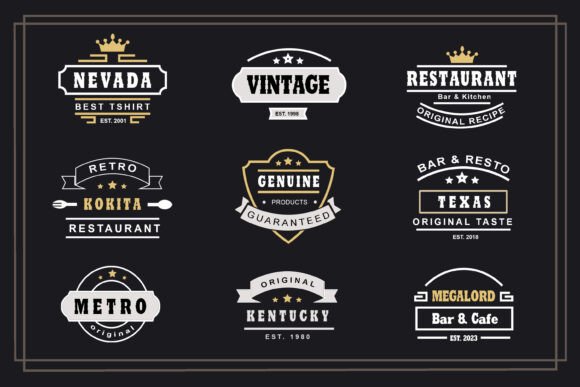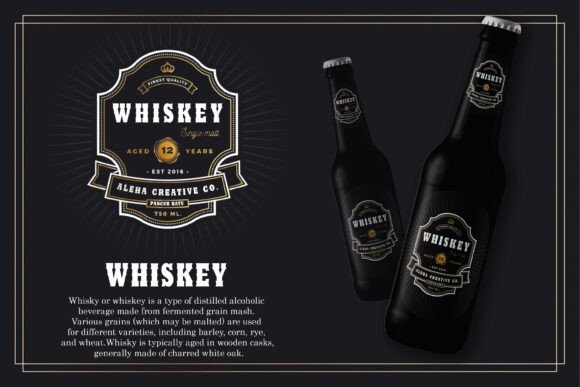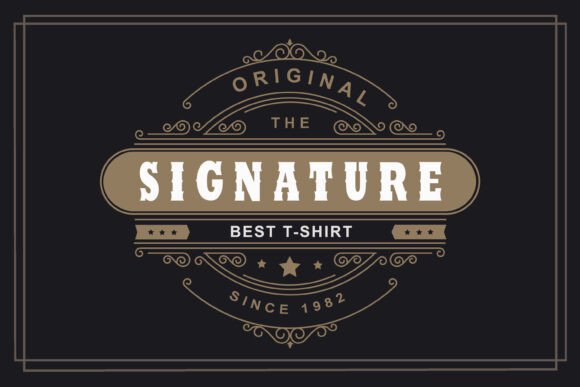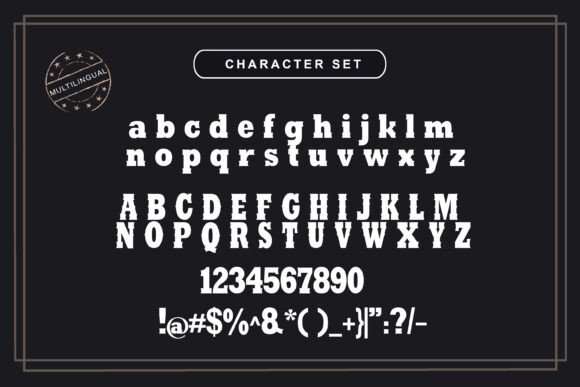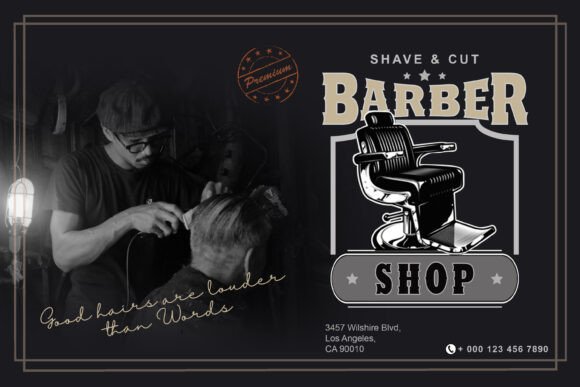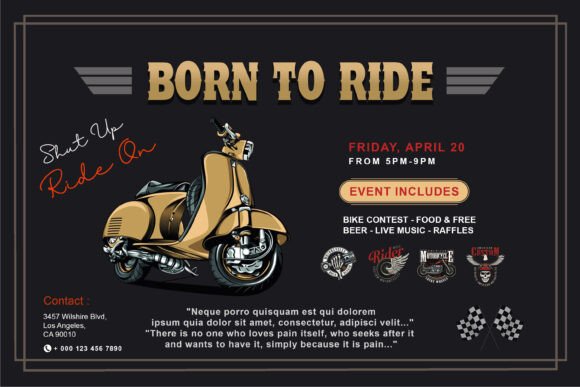
Unveiling the Allure of Megaline Font
As a designer, have you ever found yourself mesmerized by the perfect blend of classic charm and modern sophistication in a single typeface? For me, that moment came when I stumbled upon the Megaline Font, a masterfully crafted display serif font that instantly elevates any design project to new heights.
What sets Megaline apart is its ability to effortlessly transition between high-end branding elements, powerful editorial designs, and even the most intricate tasks demanding a touch of finesse. With its robust serifs and flawless strokes, this supremely elegant typeface guarantees a lasting, unforgettable style impact that’s sure to captivate audiences and leave a lasting impression.
Key Features of Megaline Font
- Designed to be highly legible and versatile, making it suitable for a wide range of creative projects, from digital art to print media.
Honest Review: Megaline Font
I recently had the chance to try out the Megaline Font, and I must say it’s a great addition to any designer’s toolkit. This high-quality font is perfect for creating a professional look and feel in your design projects.
One of the standout features of the Megaline Font is its sleek and modern design. It’s perfect for use in a variety of creative projects, from logos and branding materials to digital displays and advertisements.
Here are some of the things that work well with the Megaline Font:
- High-quality design: The font looks great on both screen and print, making it perfect for a wide range of design applications.
- Limited character set: The font only includes a limited character set, which may not be suitable for all design projects.
- No bold or italic options: Unfortunately, the font does not include bold or italic options, which may limit its use in certain design contexts.
Overall, I’m really impressed with the Megaline Font. It’s a great addition to any designer’s toolkit, and I would definitely recommend it to anyone looking for a high-quality, free font.
Megaline Font
For optimal results, use the Megaline Font in conjunction with other high-quality design elements. Experiment with different font sizes and colors to get the most out of this versatile font.
The Megaline Font is perfect for designing logos, posters, and other visual materials. Its transparent background feature makes it ideal for layered designs and compositions.
What is the recommended font size for the Megaline Font?
The recommended font size for the Megaline Font varies depending on the intended use and design requirements. However, as a general guideline, we recommend using font sizes between 12-48 points for body text, and 72-144 points for headlines. This will ensure optimal legibility and visual impact in your creative project.